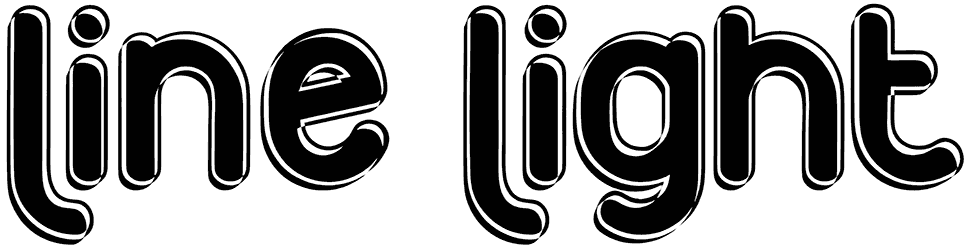
Line Light Font
When you apply a disco font like this one to your design, the final show will be unique and mesmerizing. This inline font has eye-catching letters, but it doesn’t cover numbers and punctuation marks. Let’s benefit from the Line Light font for your novel design, like an industrial banner, and be impressive.